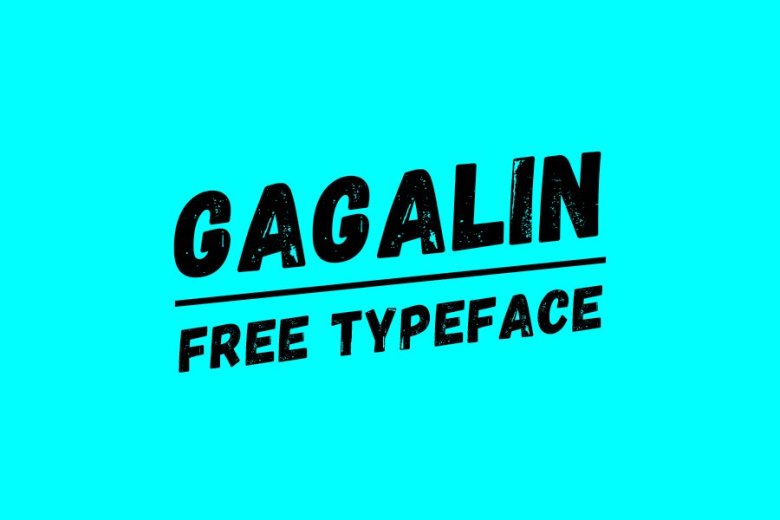
Gagalin Font
Gagalin–Free Font
Gagalin is a retro comic font that was made with rough and scratch effect on it! This display font can be very useful to give your design the vintage touch! looks perfect on poster design, t-shirt or apparel, branding, flyers and so much more that your creative mind ever thought about! This font also contains supporting character for Russian alphabet.